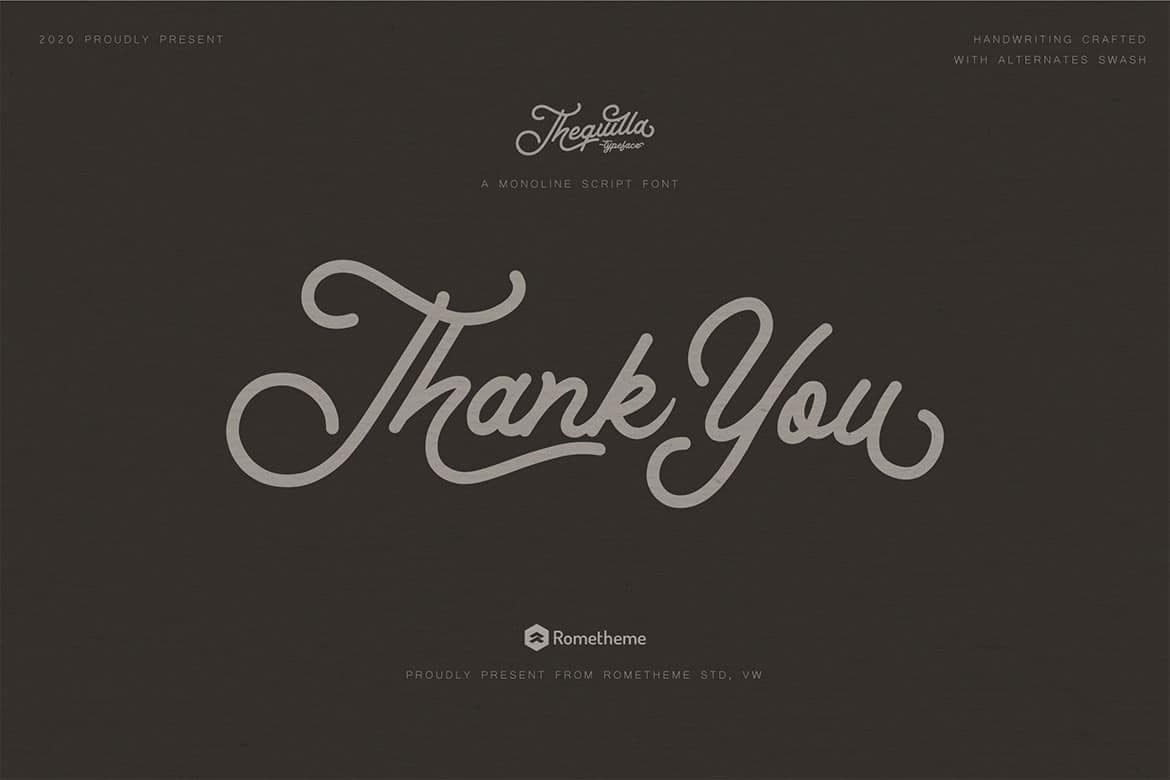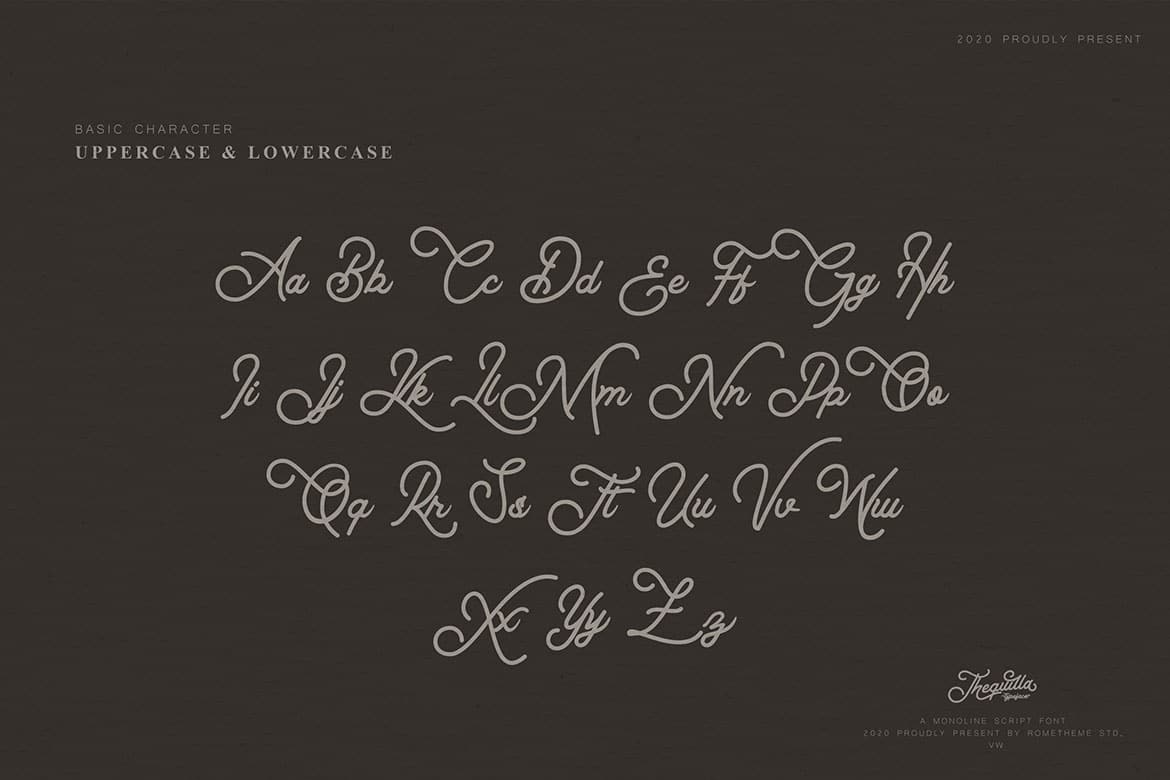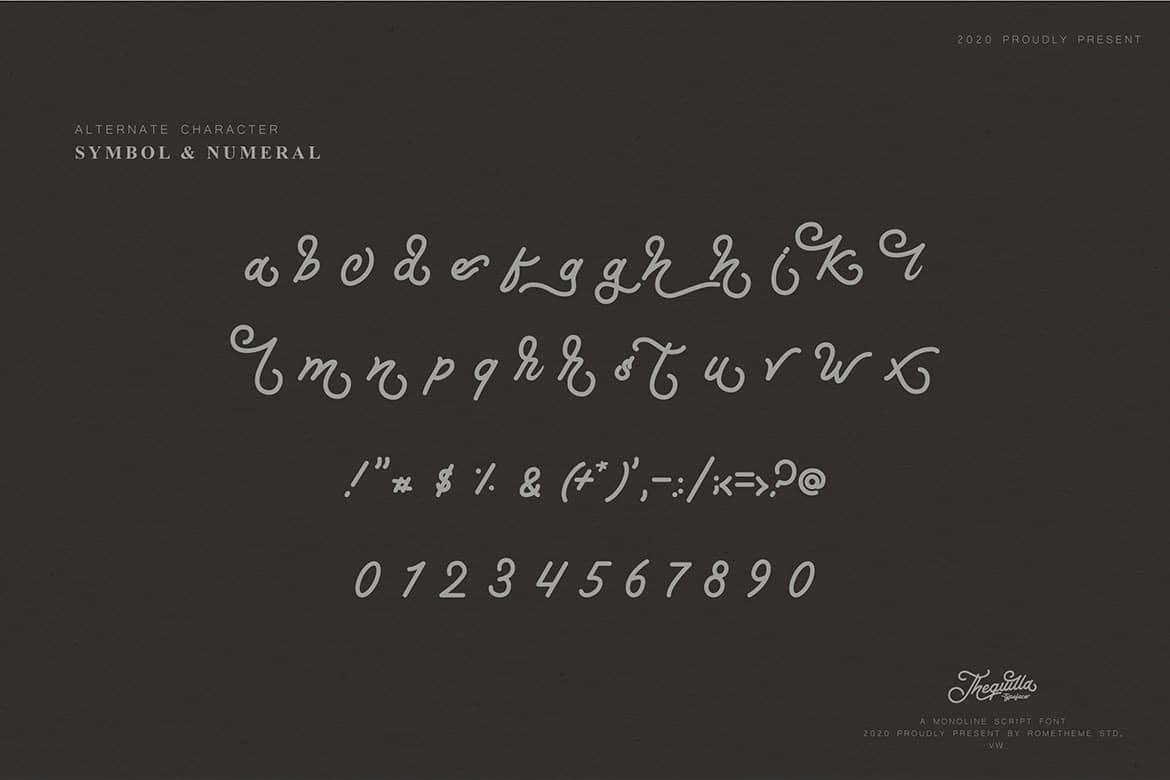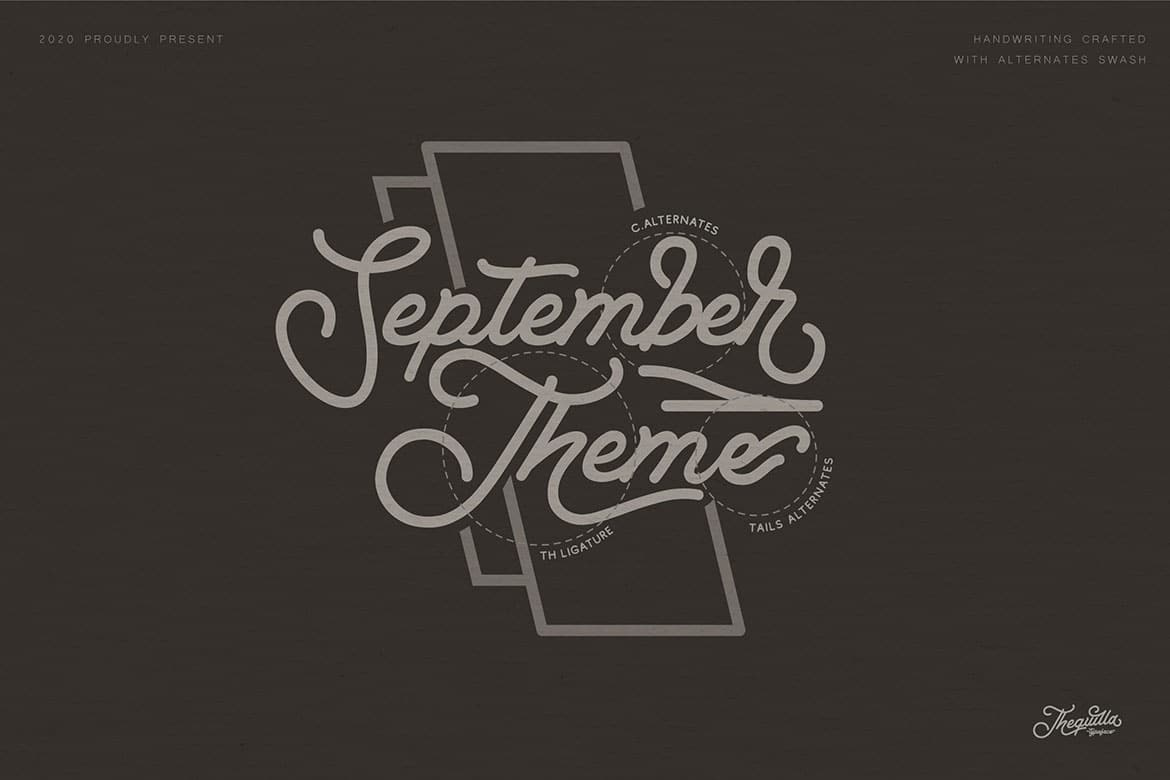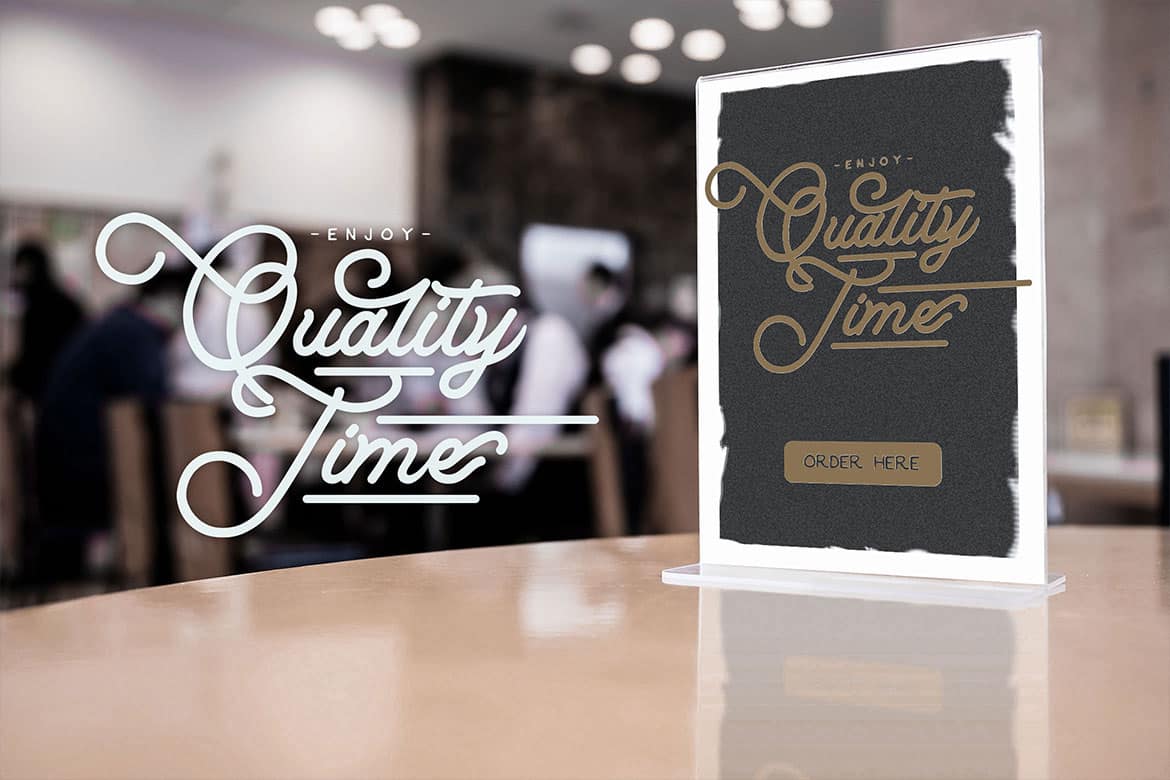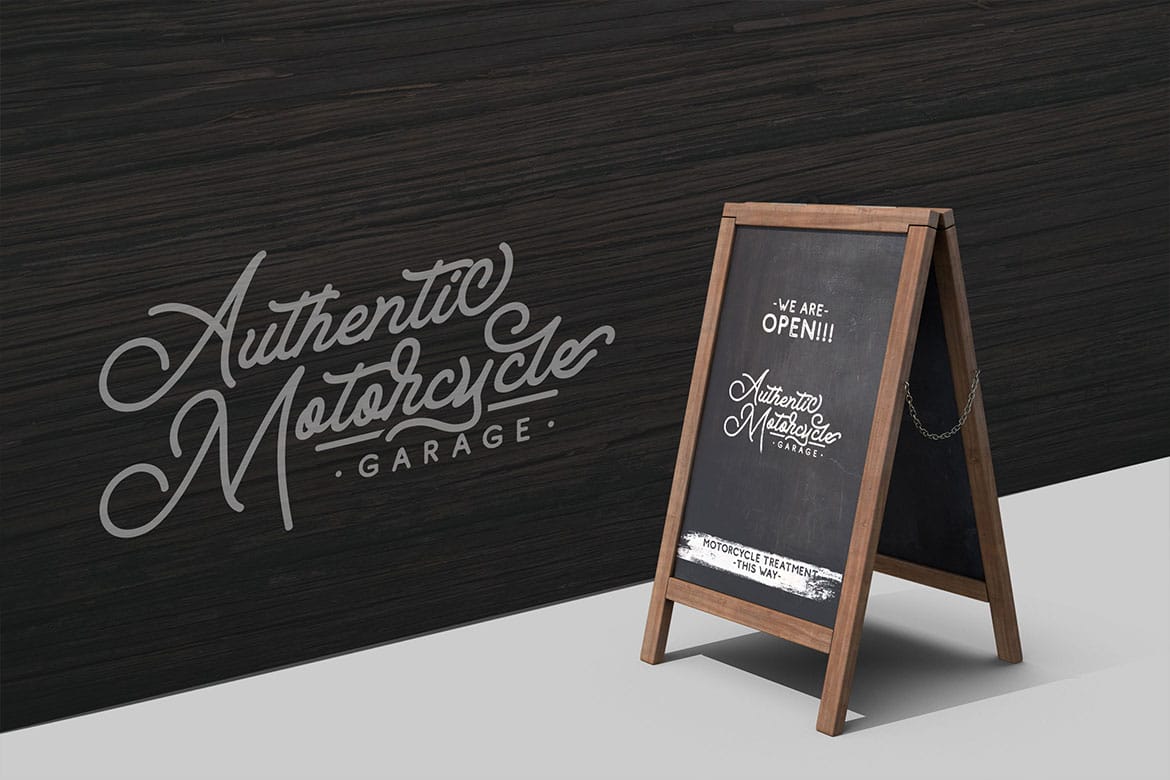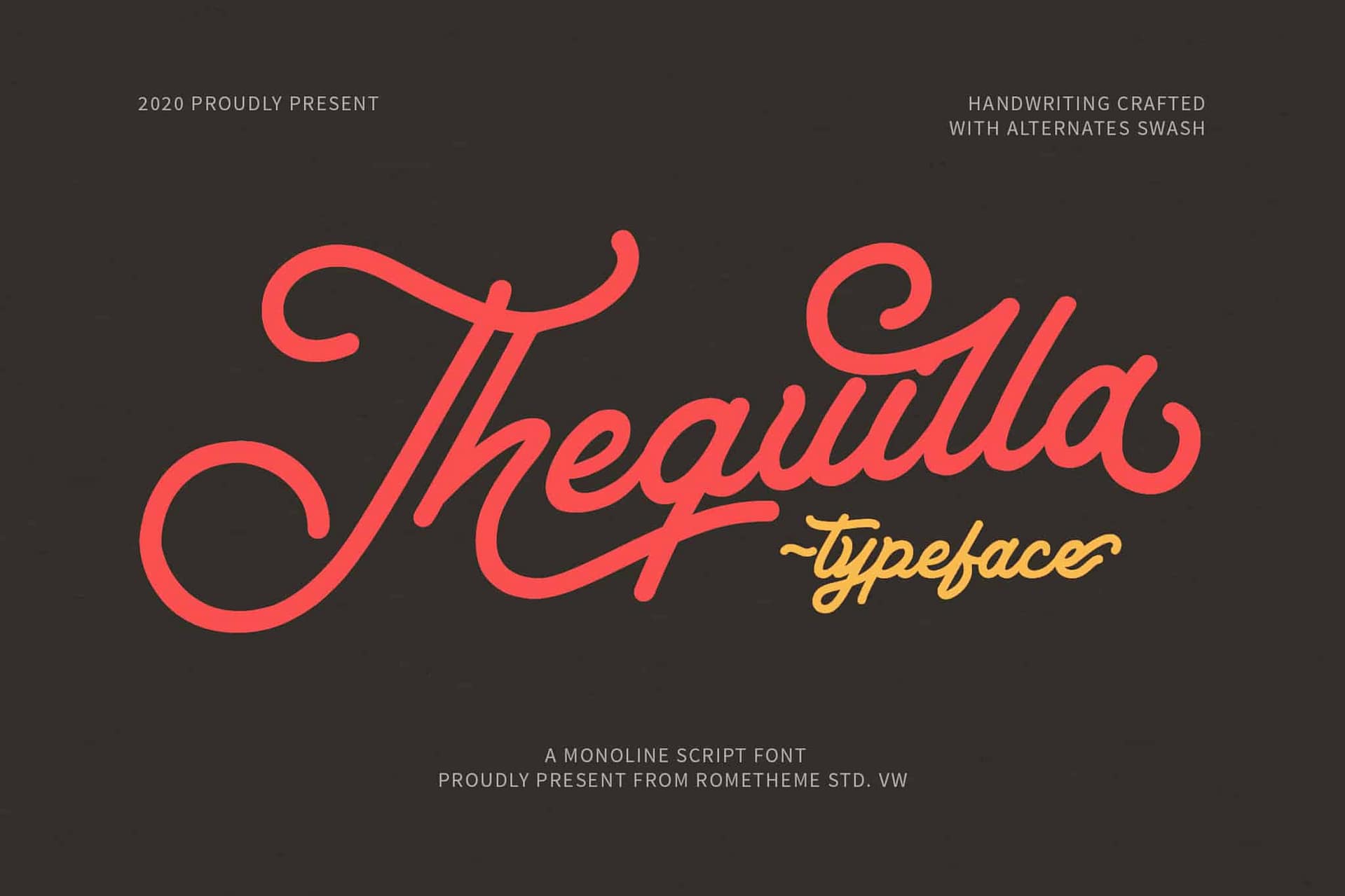
Thequilla is vintage monoline script font. It has vintage, elegant, old school, classy, and cool. Itโs a great font for fashion, apparel projects, signature, album cover, logo, branding, magazine, social media, & advertisements, but also works great for other projects.
- Basic Latin A-Z and a-z
- Numbers
- Punctions
- Multilingual Support